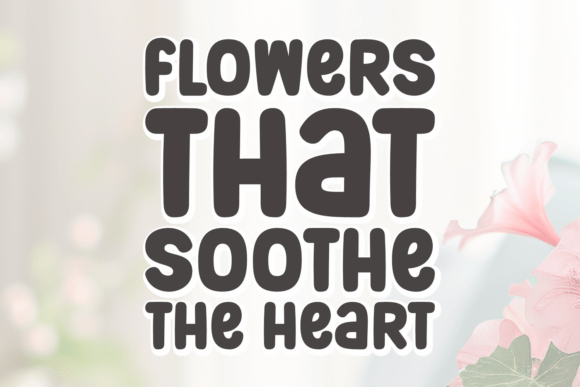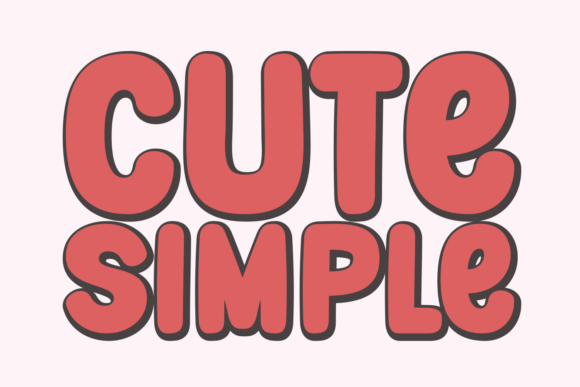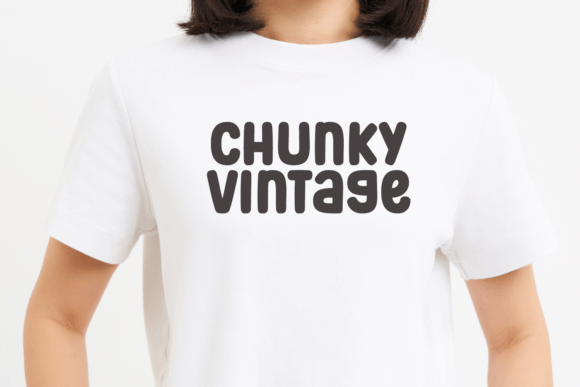
Introduction to Fenia Font
Have you ever stumbled upon a design that instantly sparks creativity? That’s exactly what happens when you lay eyes on Fenia Font – a minimalist yet bold creation that perfectly marries simplicity and playfulness. As a designer, you know the importance of having a versatile and high-quality design resource at your fingertips.
With Fenia Font, you can effortlessly add a touch of whimsy and readability to your creative projects. Its rounded typeface is adaptable, making it ideal for a wide range of applications, from classroom teaching to organization labels and crafting projects. Plus, with a transparent background, you can easily place it over any image or color scheme, giving you endless design possibilities.
Whether you’re a seasoned designer or a hobbyist, Fenia Font is a valuable addition to your design arsenal. You can download it for free and start exploring its endless possibilities. Get ready to elevate your Cricut and Silhouette projects with this hand-lettered wonder that adds a touch of personality and warmth to any design.
Key Features of Fenia Font
- High-quality design resource suitable for creative projects, offering a unique and elegant touch.
- Perfect for use in digital and print media, including logos, branding, and typography-based designs.
Honest Review: Fenia Font
Fenia Font is a free download that caught my attention, and I was eager to put it to the test in my next creative project. The transparent background made it easy to incorporate into my design, and the clean lines gave it a modern feel.
- ✨ High-quality glyphs that made it easy to read and understand
- ✨ Clean and modern design that fits well with contemporary styles
- ⚠️ Limited character set, which might not be ideal for extensive text-based projects
- ⚠️ Not ideal for small text sizes, as the lines can become a bit blurry
Overall, I was impressed with Fenia Font’s potential and versatility. It’s a great addition to any designer’s toolkit, especially for creative projects that require a modern and clean look. With some minor adjustments, it can be a valuable resource for designers looking for high-quality fonts.
Tips for Getting the Most Out of Fenia Font
To get the most out of Fenia Font, use it in combination with other design elements, such as images, shapes, and colors. Experiment with different font sizes, styles, and arrangements to create unique and eye-catching designs.
Fenia Font is perfect for a variety of creative projects, including:
Marketing materials, such as brochures, flyers, and business cards
Event invitations and party decorations
Brand logos and identity design
Education and training materials, such as worksheets and presentations
The Fenia Font images are available in high-quality resolutions, making them suitable for various design applications. The images can be easily resized or adjusted to fit your design needs, and they also support a transparent background, allowing for seamless integration into your creative project.